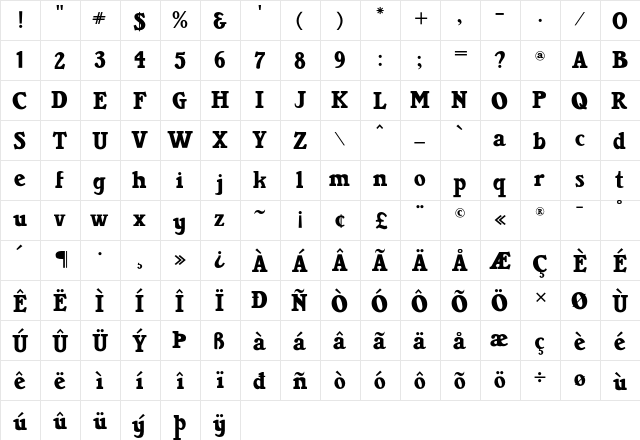
Bruntsfield CF Black Regular
| Foundry | Chuck's Fonts |
| Designer | Chuck Mountain |
Design Context for Bruntsfield CF Black Typeface
Bruntsfield CF Black takes a measured approach to typography — its balanced proportions and neutral character make it a reliable workhorse for both digital and print work.